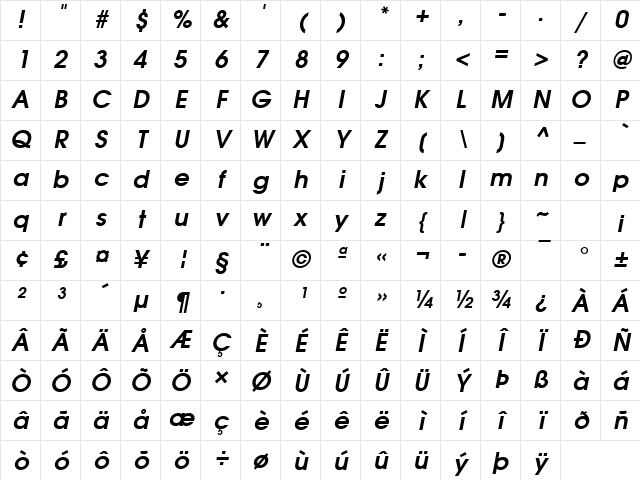
AvantGarGotItcLUN Bold Italic
AvantGarGotItcLUN Family
AvantGarGotItcLUN Bold Italic
Design Context for AvantGarGotItcLUN
AvantGarGotItcLUN is a composed and adaptable typeface that performs quietly and consistently across a wide range of design contexts. The slanted form adds forward momentum and visual energy. Its bold stroke weight gives it real presence on the page.
Pro Tip: Use AvantGarGotItcLUN for emphasis, pull quotes, and subheadings where its slanted energy can add rhythm to the layout.